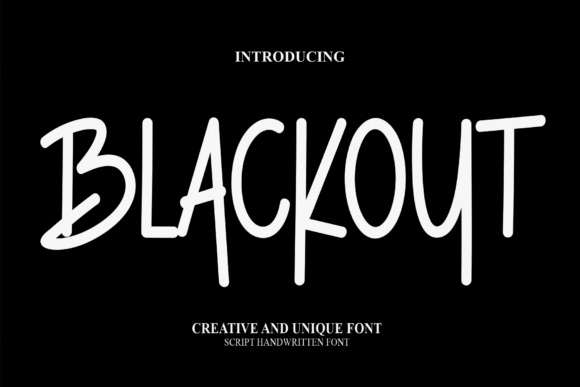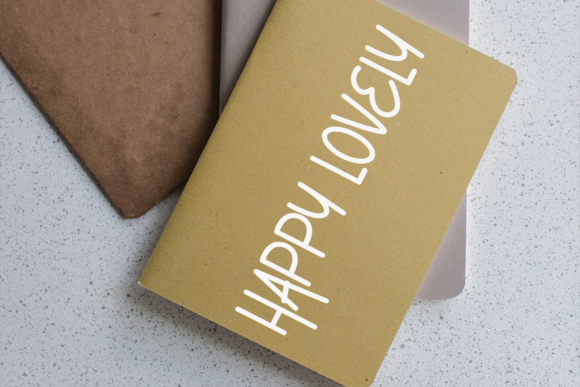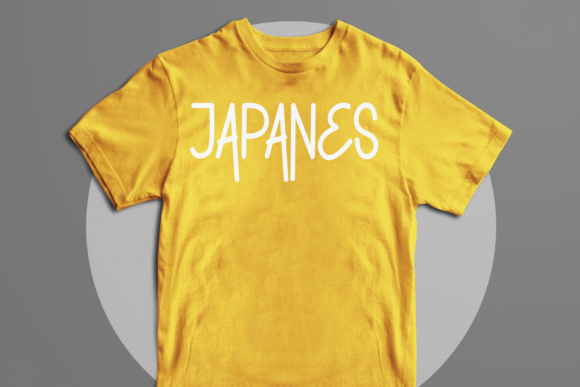
Blackout is a charming and delightful handwritten font that effortlessly adds a touch of sweetness and friendliness to any design project. Its soft and inviting nature makes it a versatile choice for a wide range of creative ideas. Whether you’re working on logos, branding, greeting cards, posters, or any other design project, Blackout is sure to bring a fun and cool vibe to your creations.
The unique appeal of Blackout lies in its ability to capture a sense of warmth and approachability. The soft curves and smooth strokes of each letter create a visual harmony that is pleasing to the eye. This font’s versatility makes it a perfect fit for various applications, allowing you to infuse your designs with a touch of playfulness and charm.
Imagine using Blackout to design eye-catching and engaging social media posts, where its friendly and cool style can instantly capture the attention of your audience. Picture it adorning your branding materials, lending a unique personality to your business’s visual identity. Whether you’re crafting invitations, flyers, or any other design that requires a hint of whimsy, Blackout is ready to deliver.
Incorporating Blackout into your projects is made even more exciting by its ability to adapt and enhance different design elements. Its soft and friendly demeanor can complement both modern and classic aesthetics, making it a versatile choice that seamlessly blends with a variety of styles.
With Blackout, you have the opportunity to infuse a sense of fun and coolness into your designs, creating an immediate connection with your audience. Let its charming and approachable nature become a key element of your creative toolbox, allowing you to bring your ideas to life in a way that resonates with people and leaves a lasting impression.